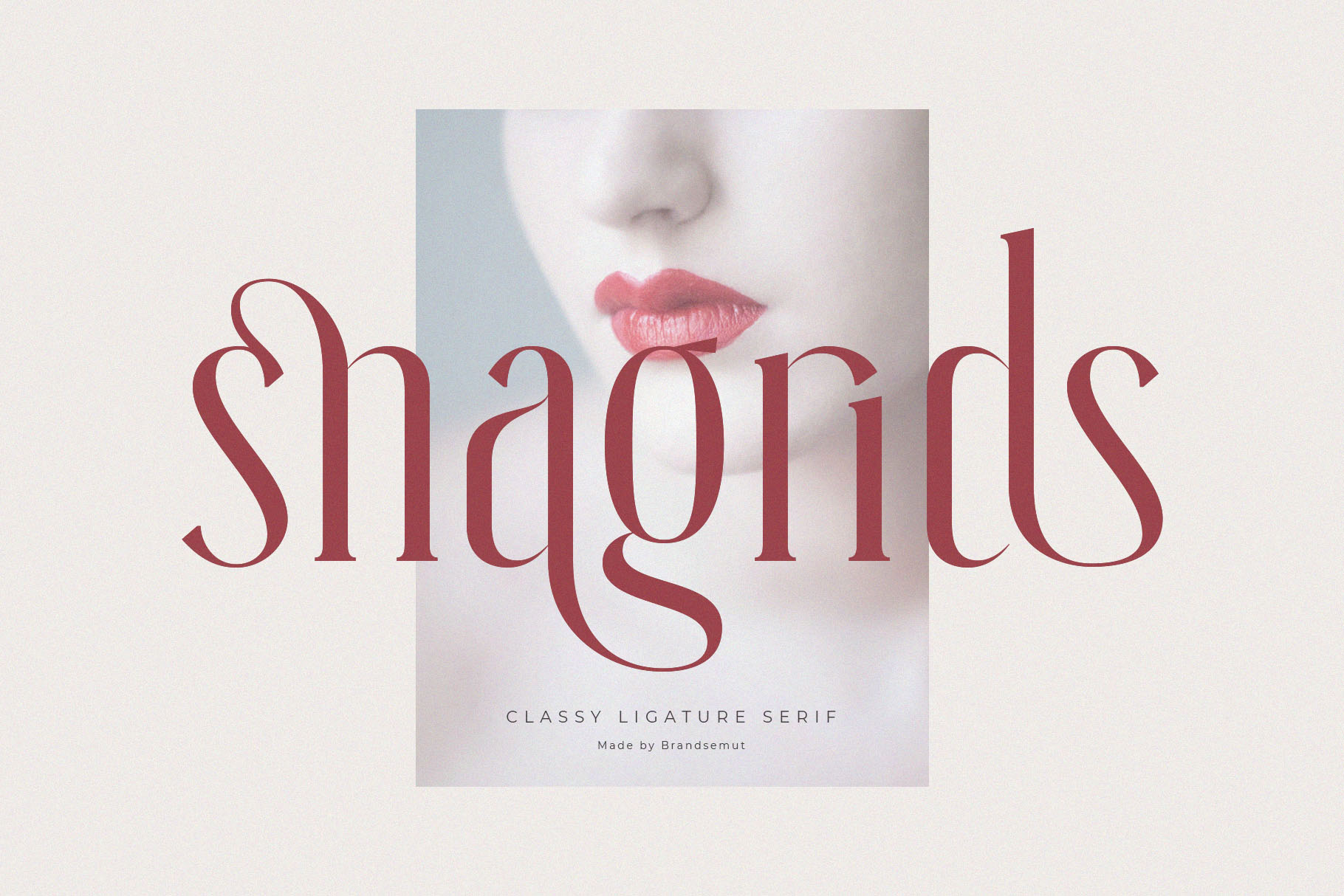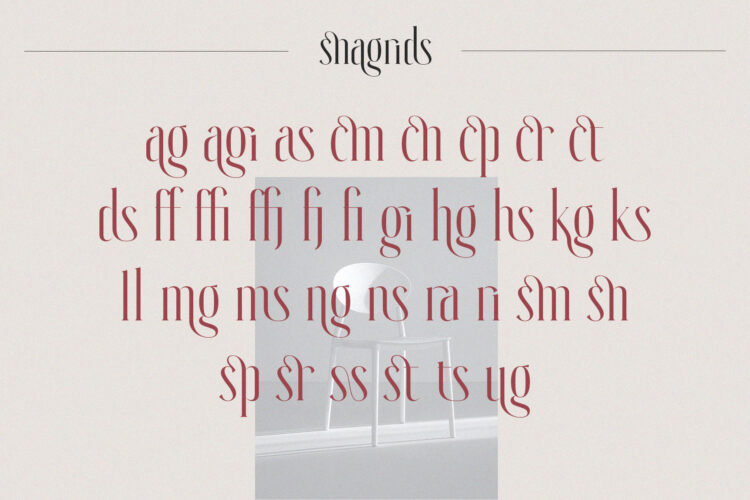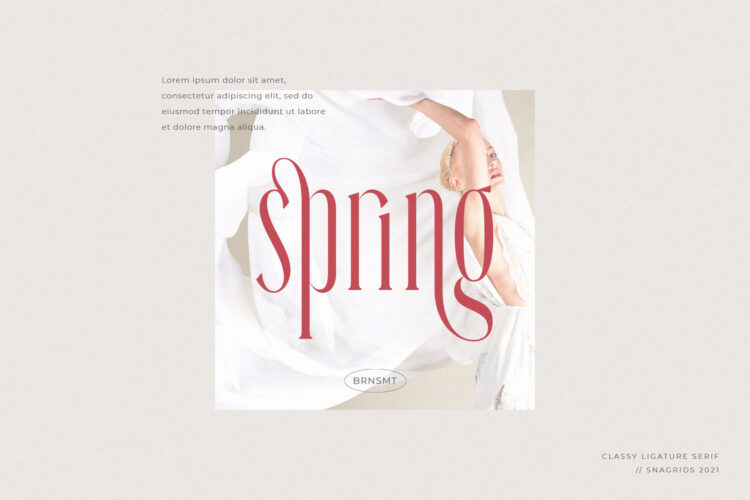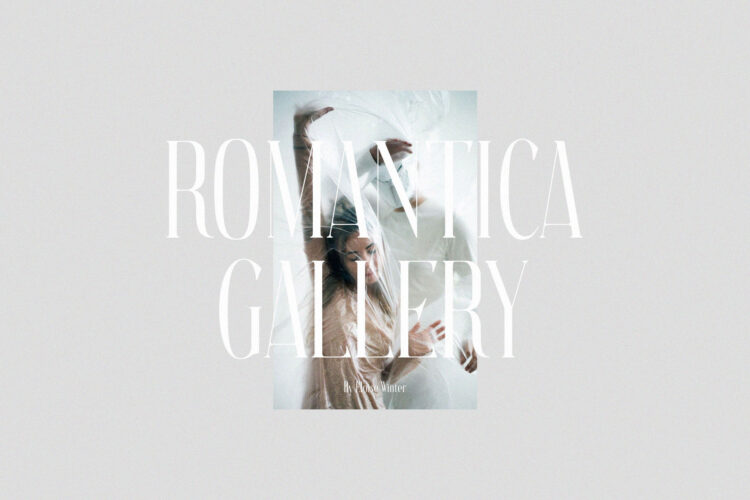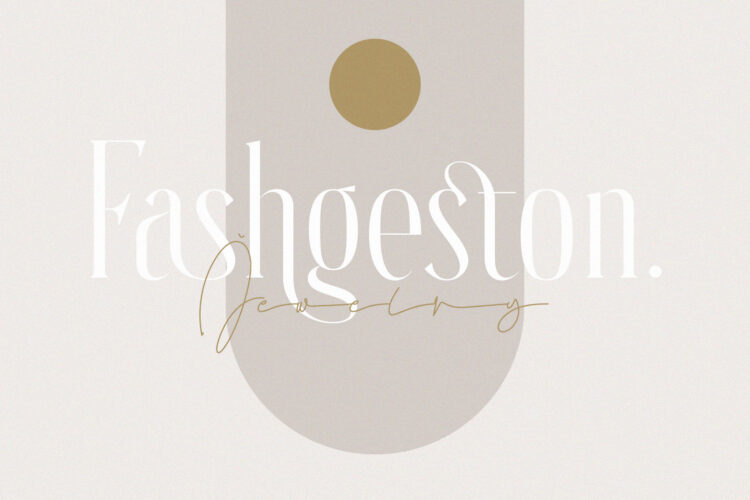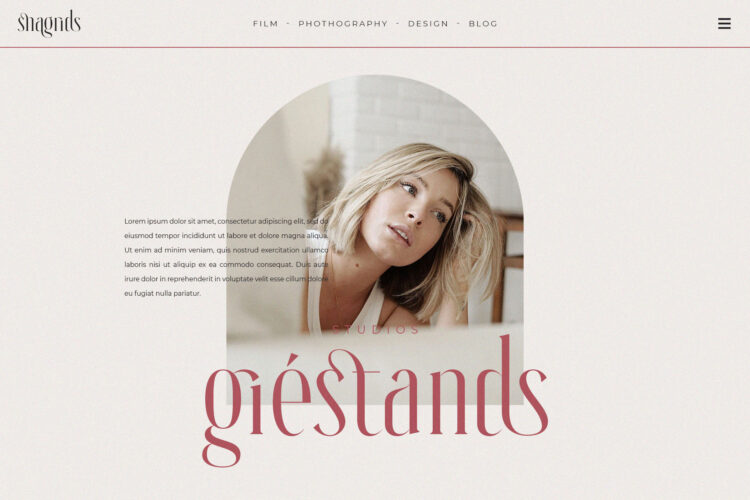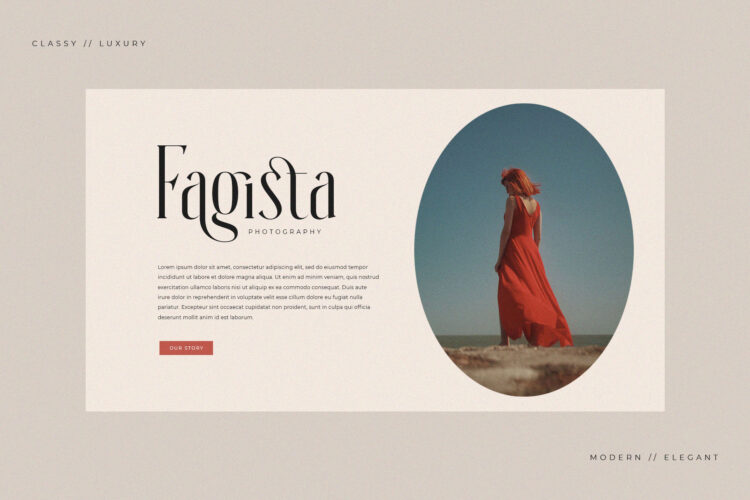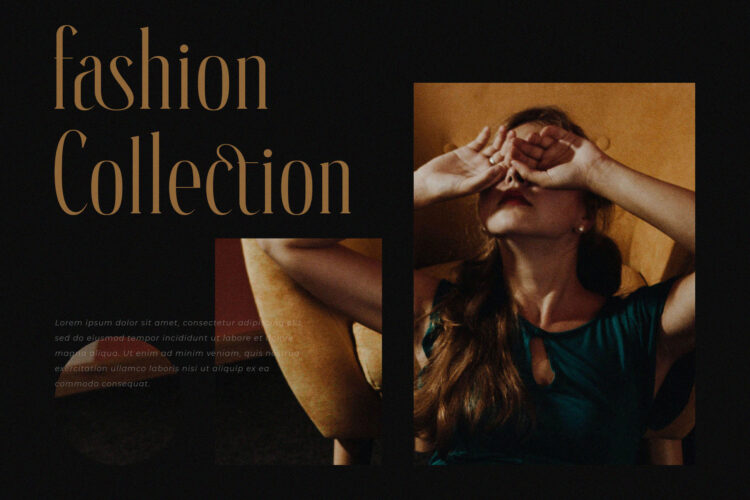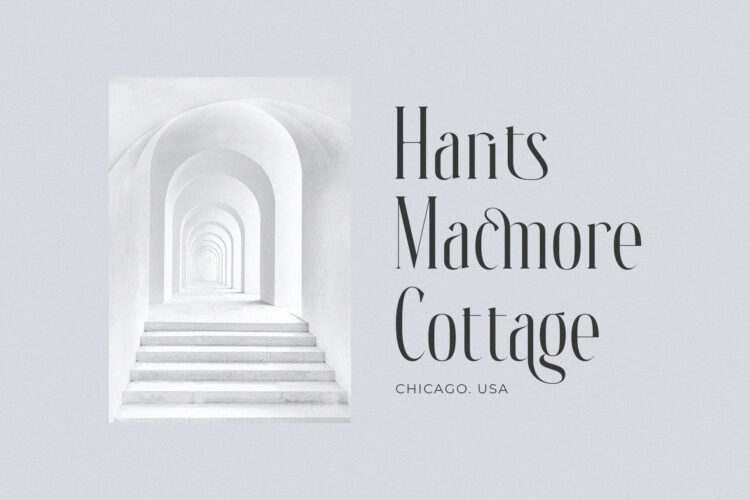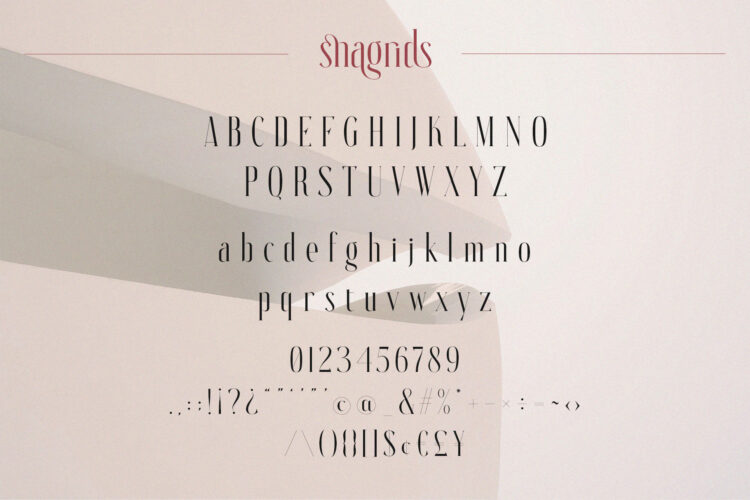
Introducing the new Snagrids Classy Ligature Serif!!! Snagrids is a modern and elegant serif font. This font is both modern and luxury and works great for logos, magazine, social media. Already matched up and ready to be used together for your next design! For those of you who are needing a touch of elegant, stylish, classy, chic and modernity for your designs, this font was created for you!
Snagrids was built with OpenType features and includes ligatures, alternates, numbers, punctuation, and it also supports other languages.